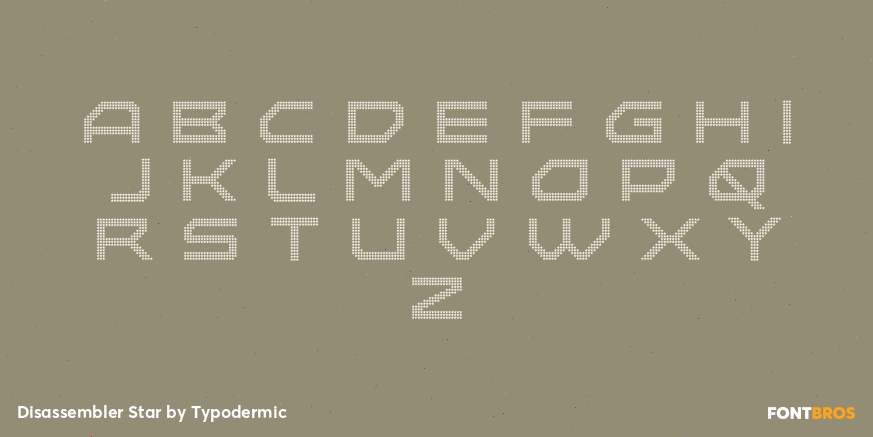
Disassembler Star
Buy NowDisassembler Star replaces conventional pixels with conspicuous star-shaped units, turning the alphabet into a patterned display surface. The repeating points add energy and visual noise, so a word can suggest targeting markers, scintillation, warning lights, or an intentionally theatrical data display.
Use Star for aerospace launches, simulation events, electronic-music stages, speculative interfaces, security-conference graphics, and enormous exhibition words that double as decorative patterns. It is the most overtly expressive Disassembler treatment and works best where the individual units have room to be seen.